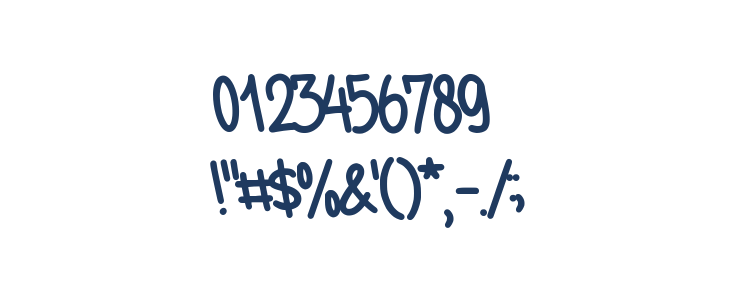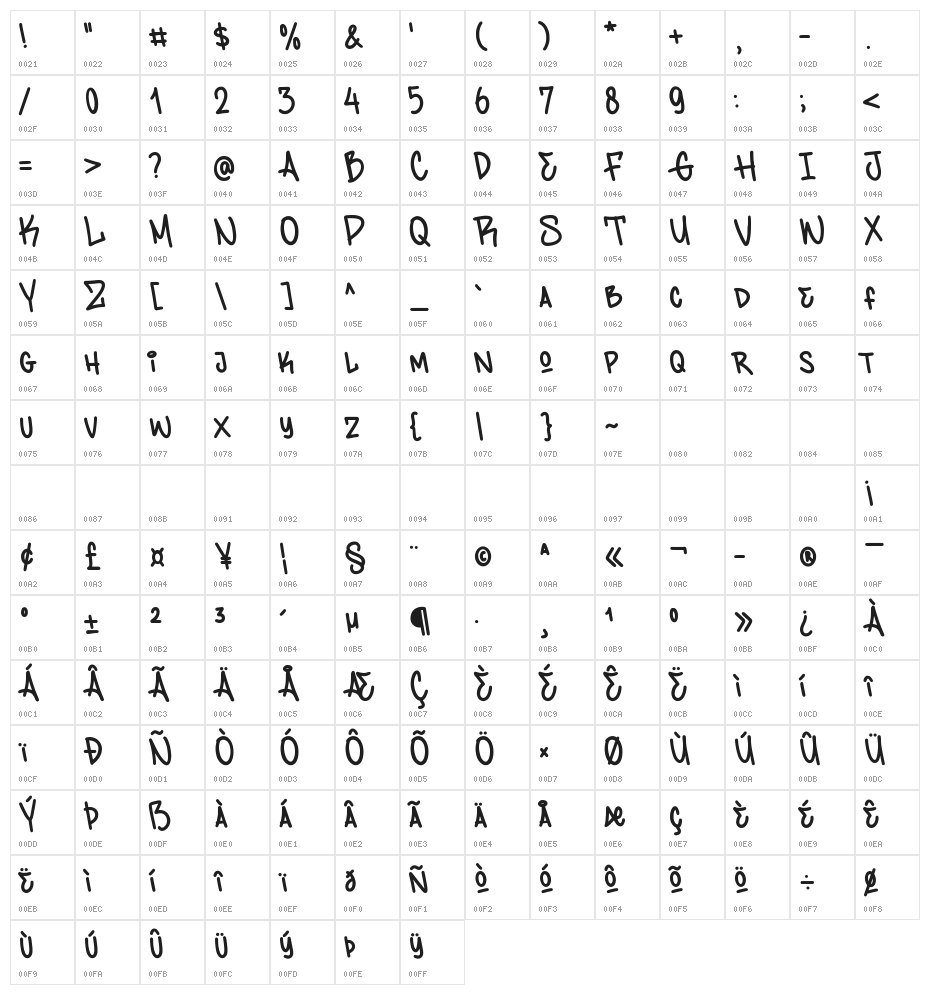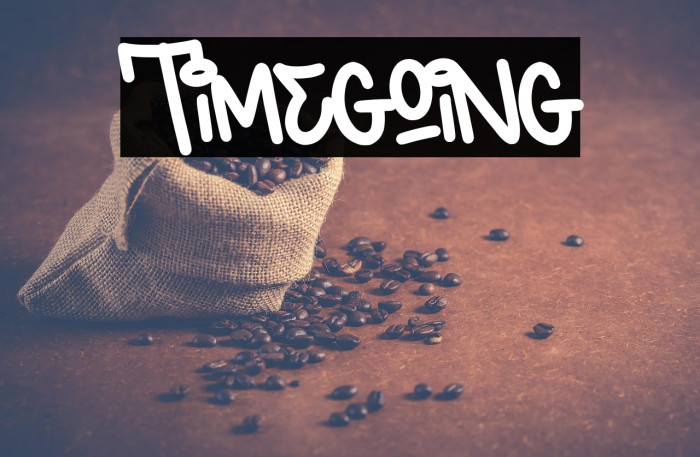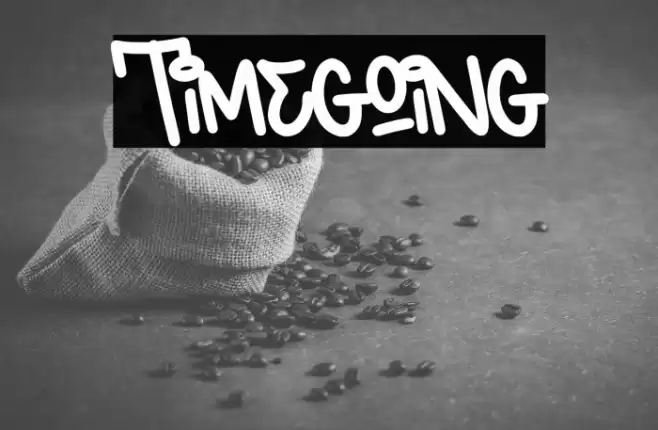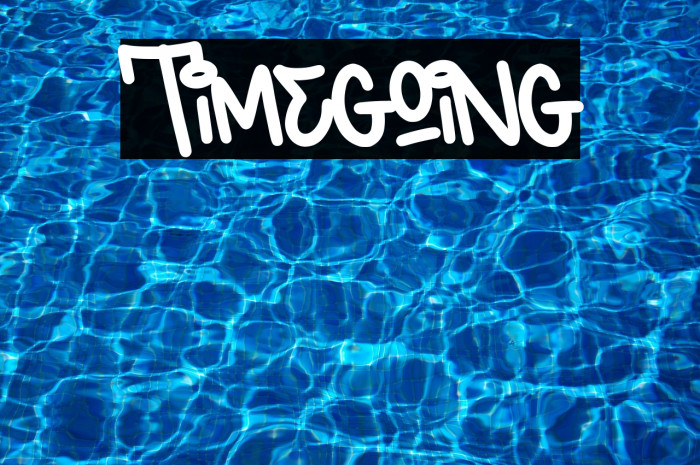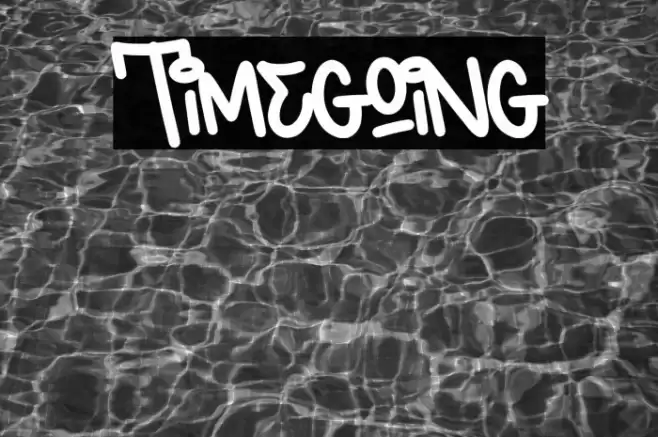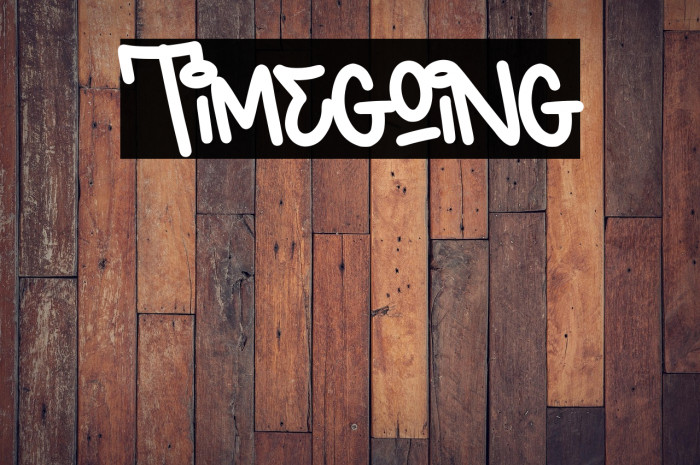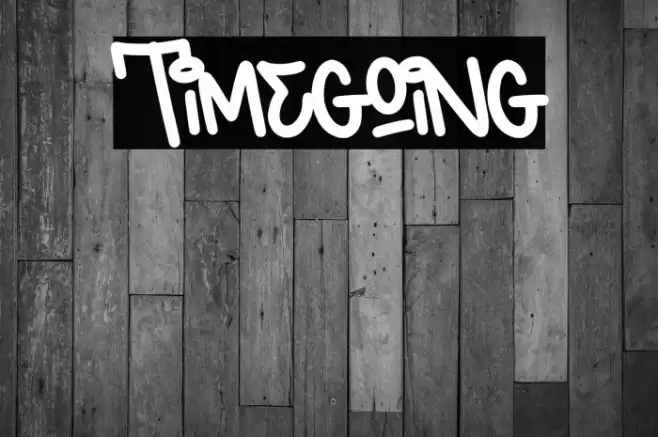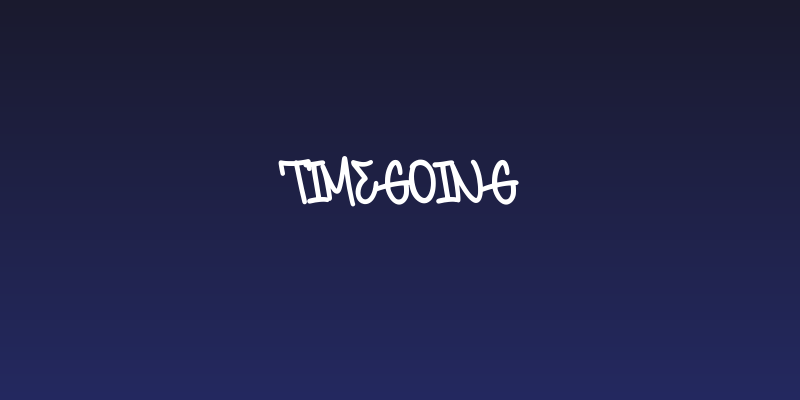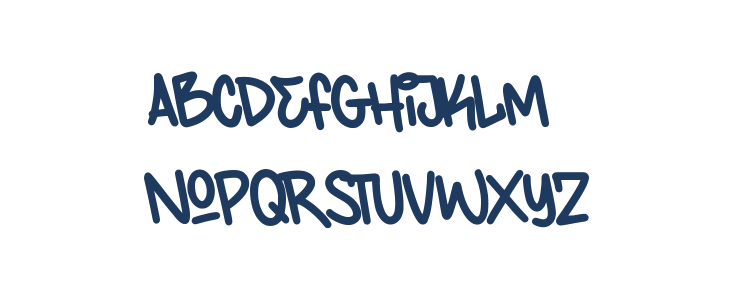
Timegoing Font
Timegoing Description
This font features a bold, handwritten style with a playful and energetic appearance. The letters are slightly slanted, giving it a casual and informal feel. The strokes are thick and consistent, with rounded edges that add to its approachable character. The uppercase and lowercase letters are distinct, with the uppercase being more prominent and the lowercase maintaining a similar width. Numbers and special characters are designed to match the overall style, ensuring cohesion across all elements. This font is ideal for projects that require a personal touch or a sense of fun and creativity.